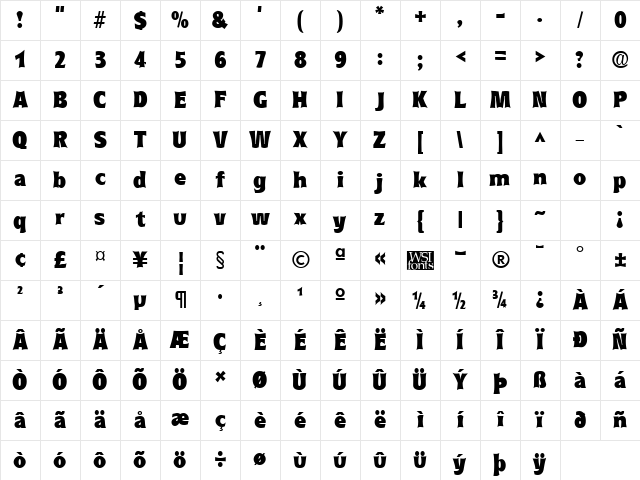
CurvacBlack Regular
CurvacBlack Family
CurvacBlack Regular
Design Context for CurvacBlack
CurvacBlack is a composed and adaptable typeface that performs quietly and consistently across a wide range of design contexts.